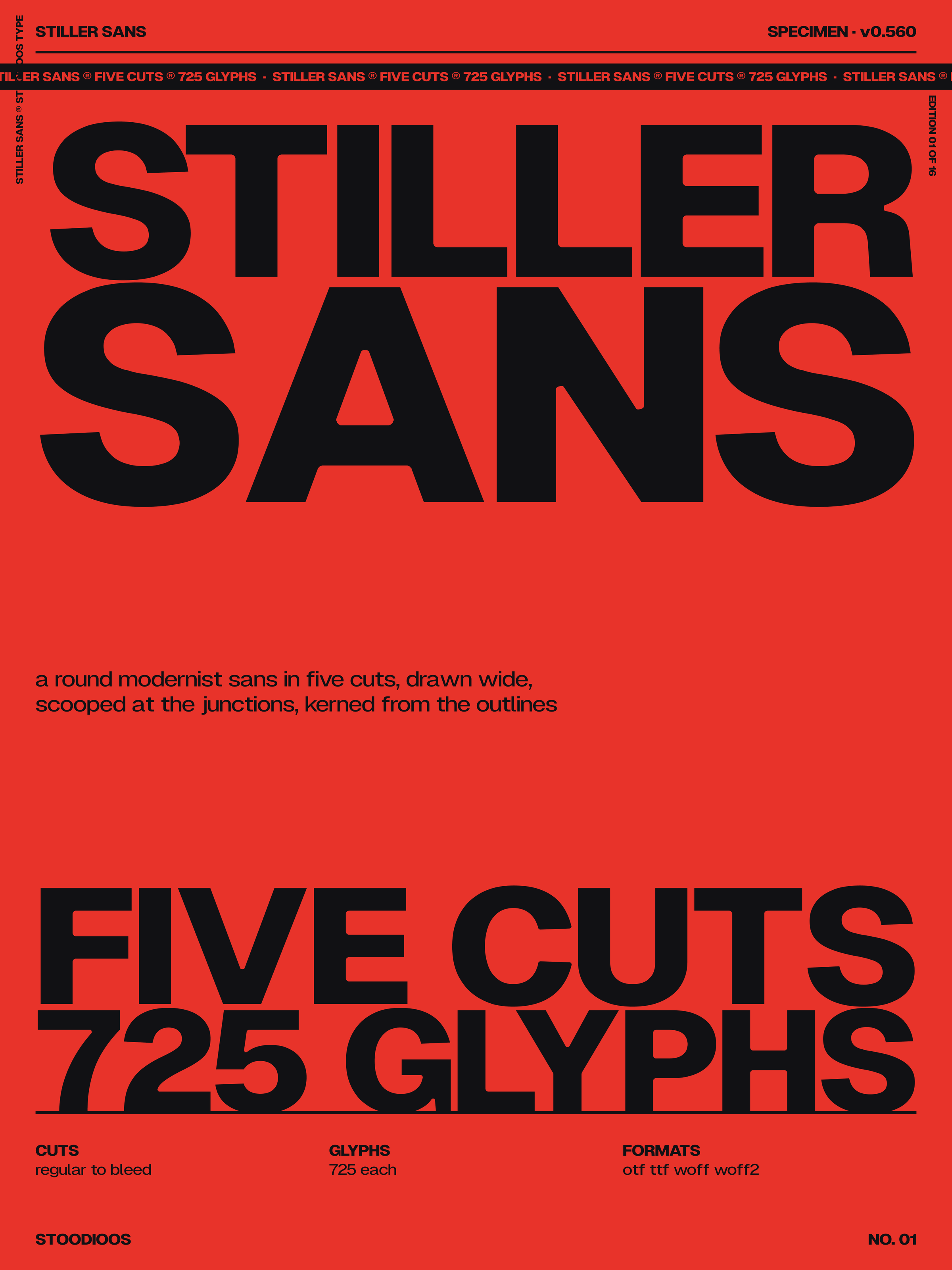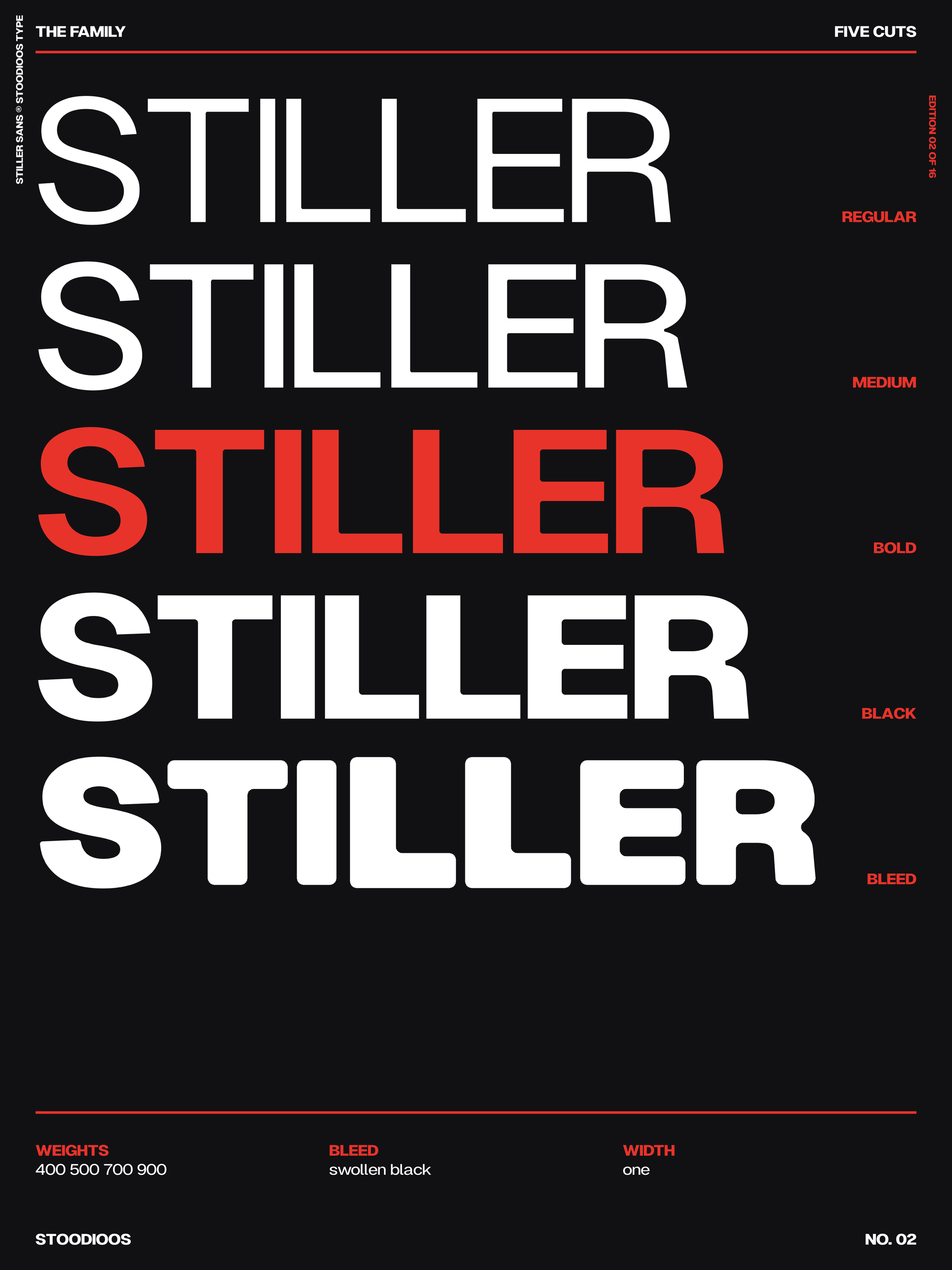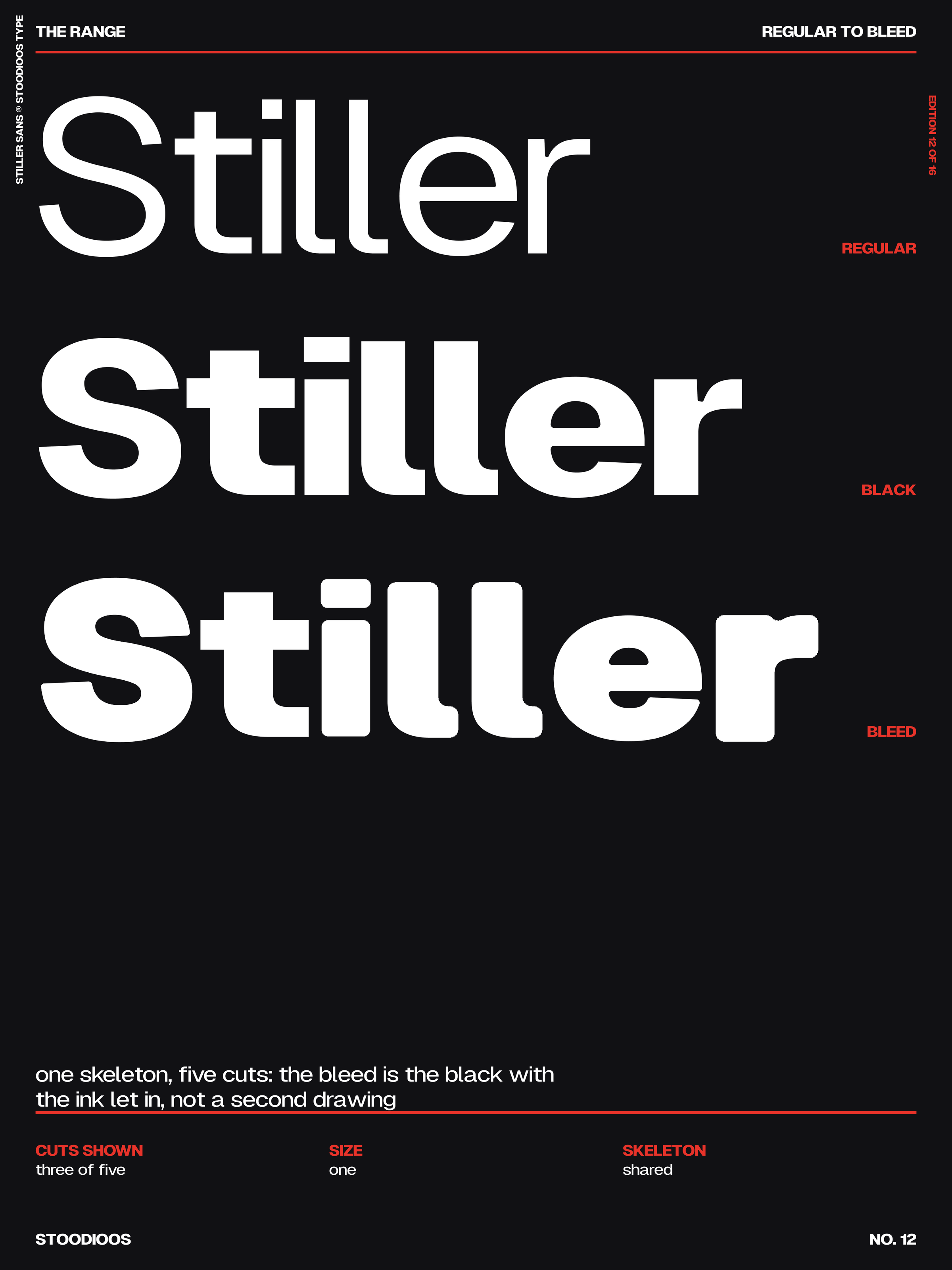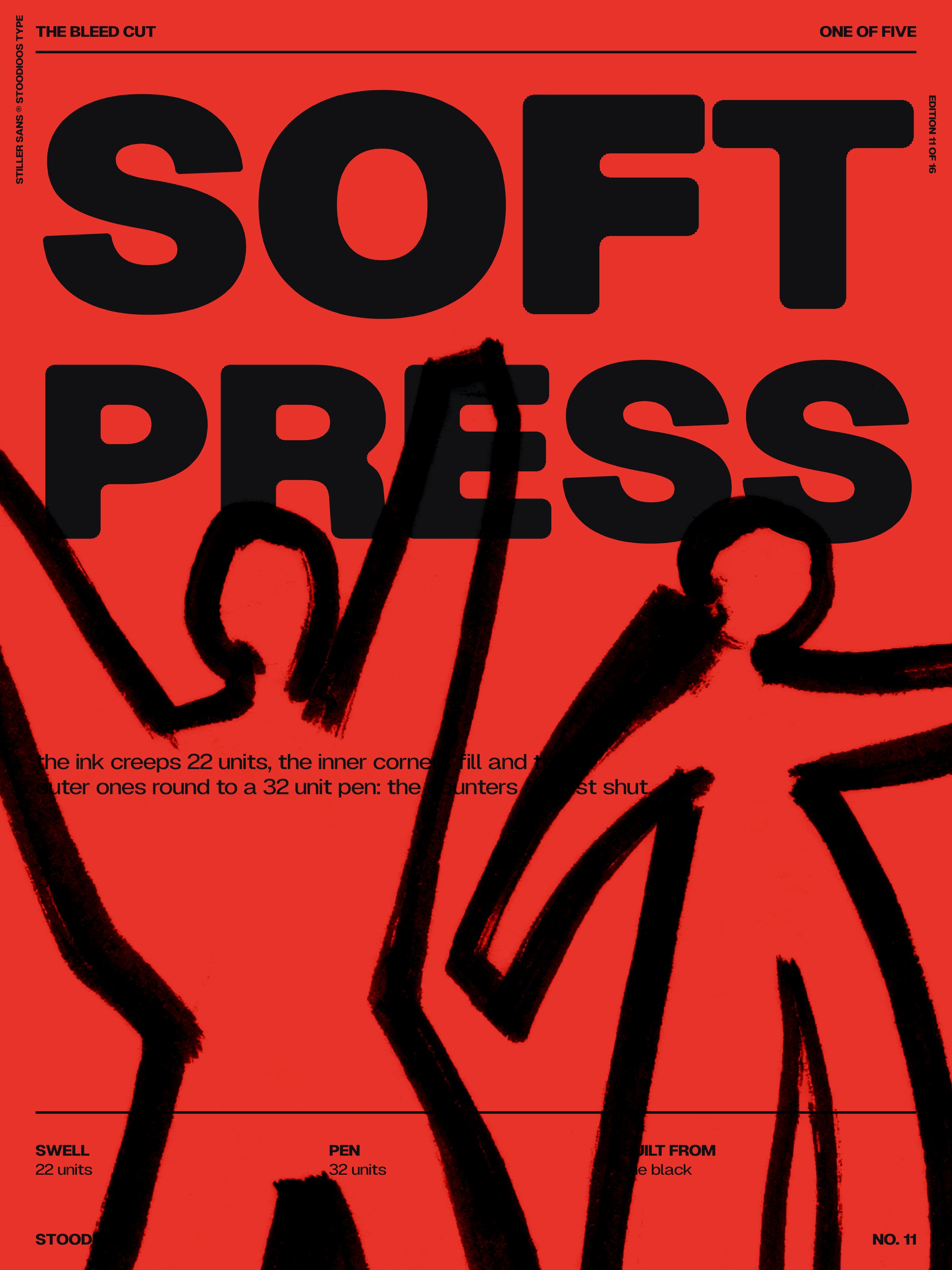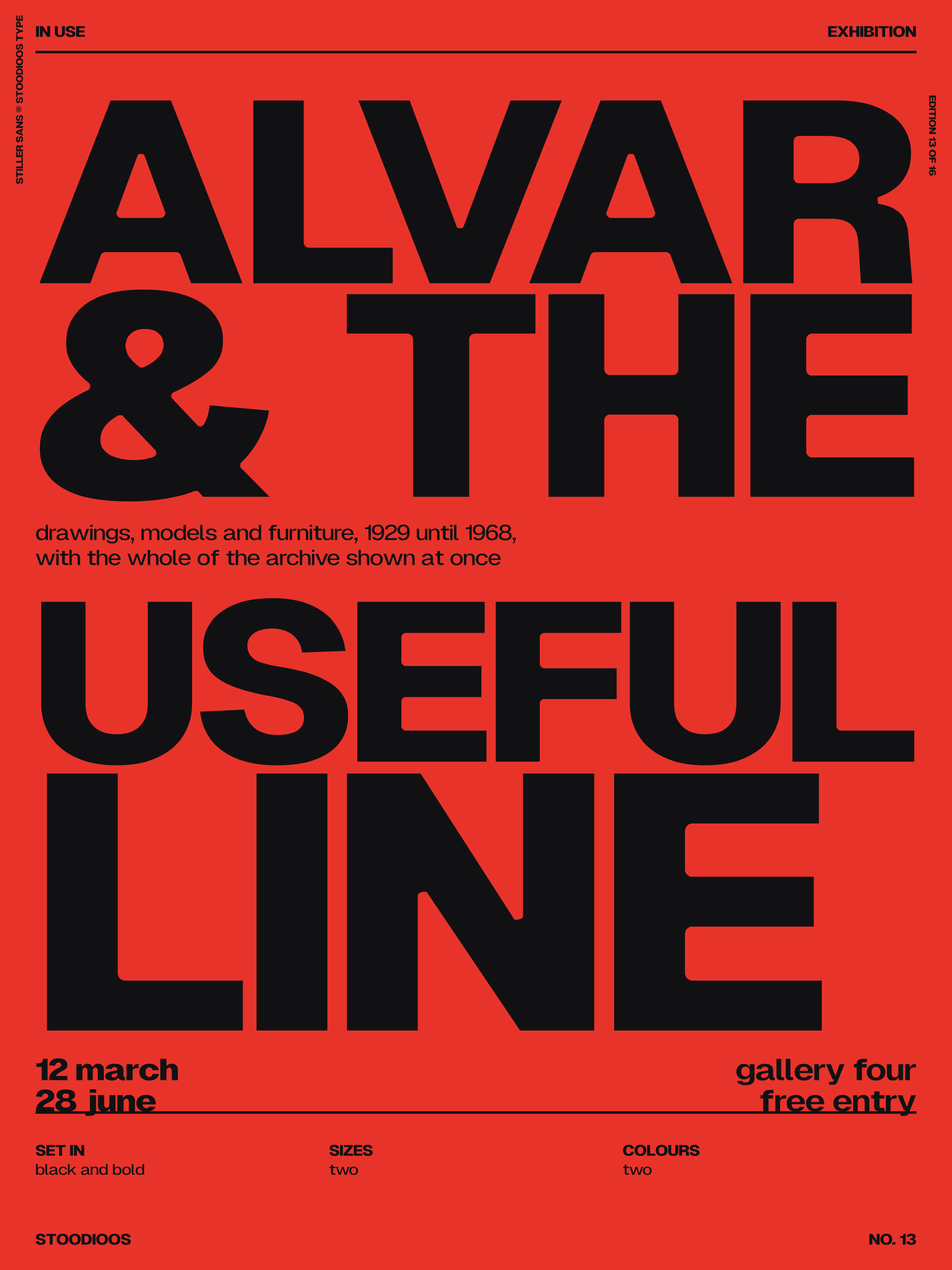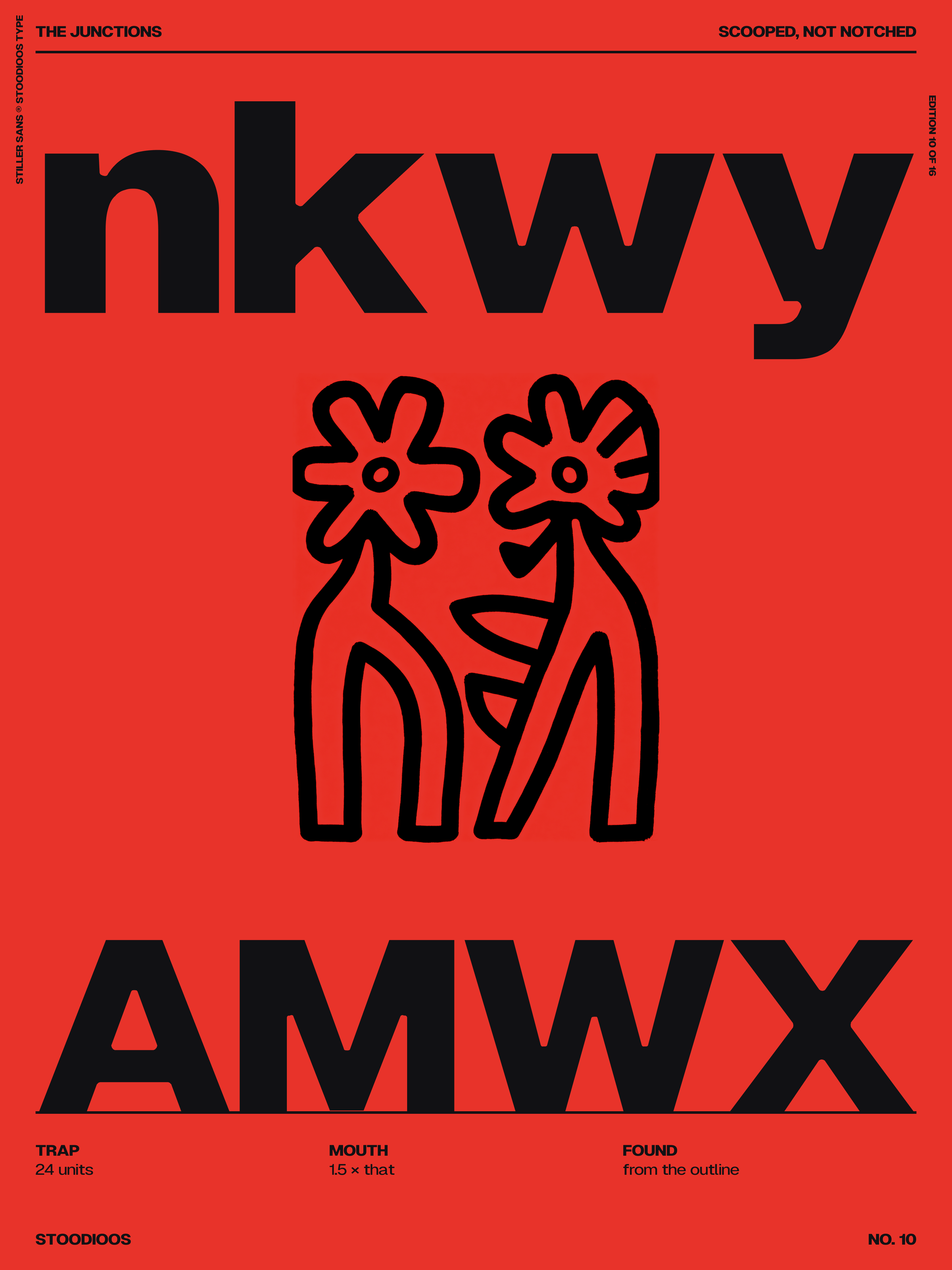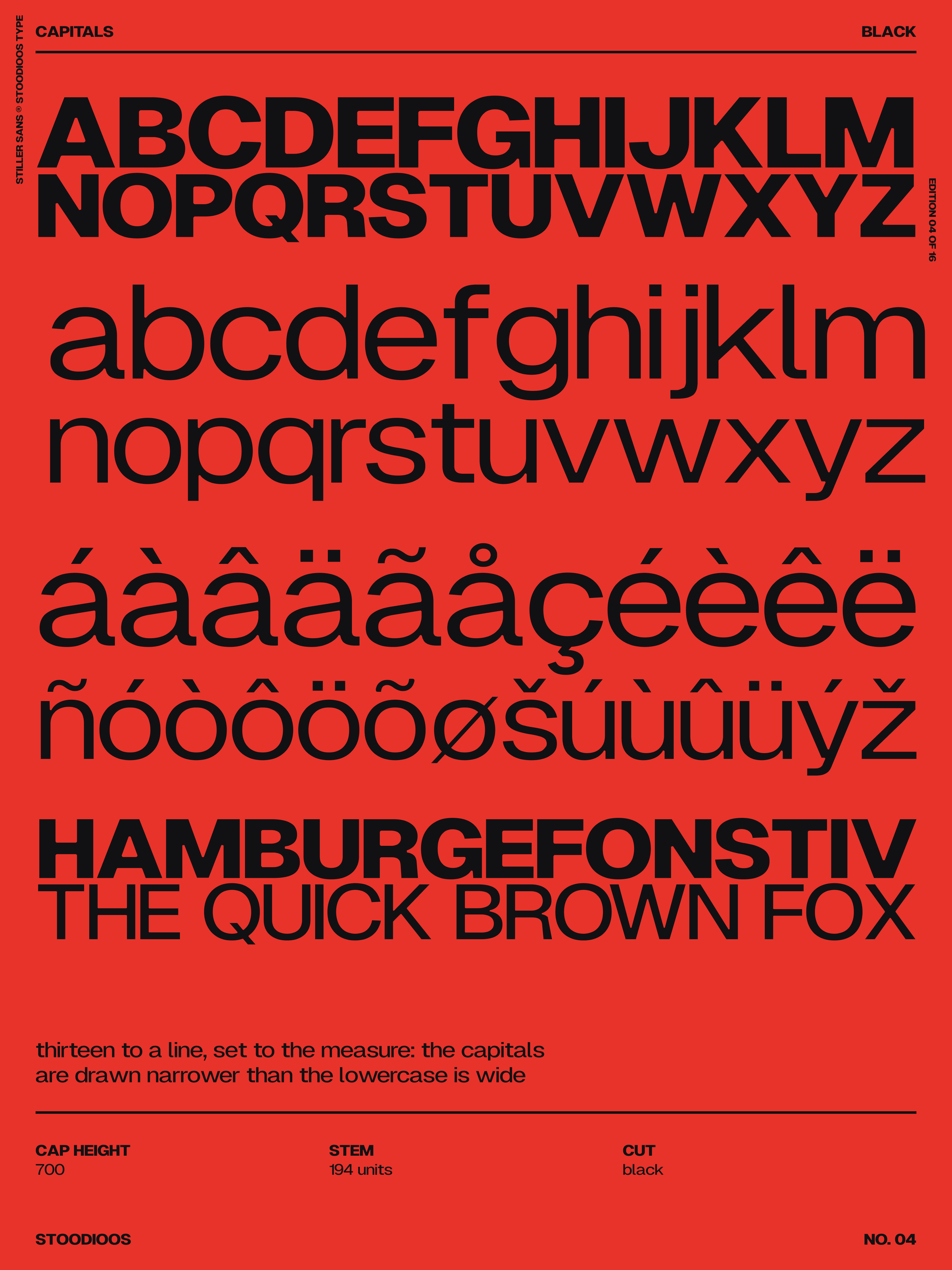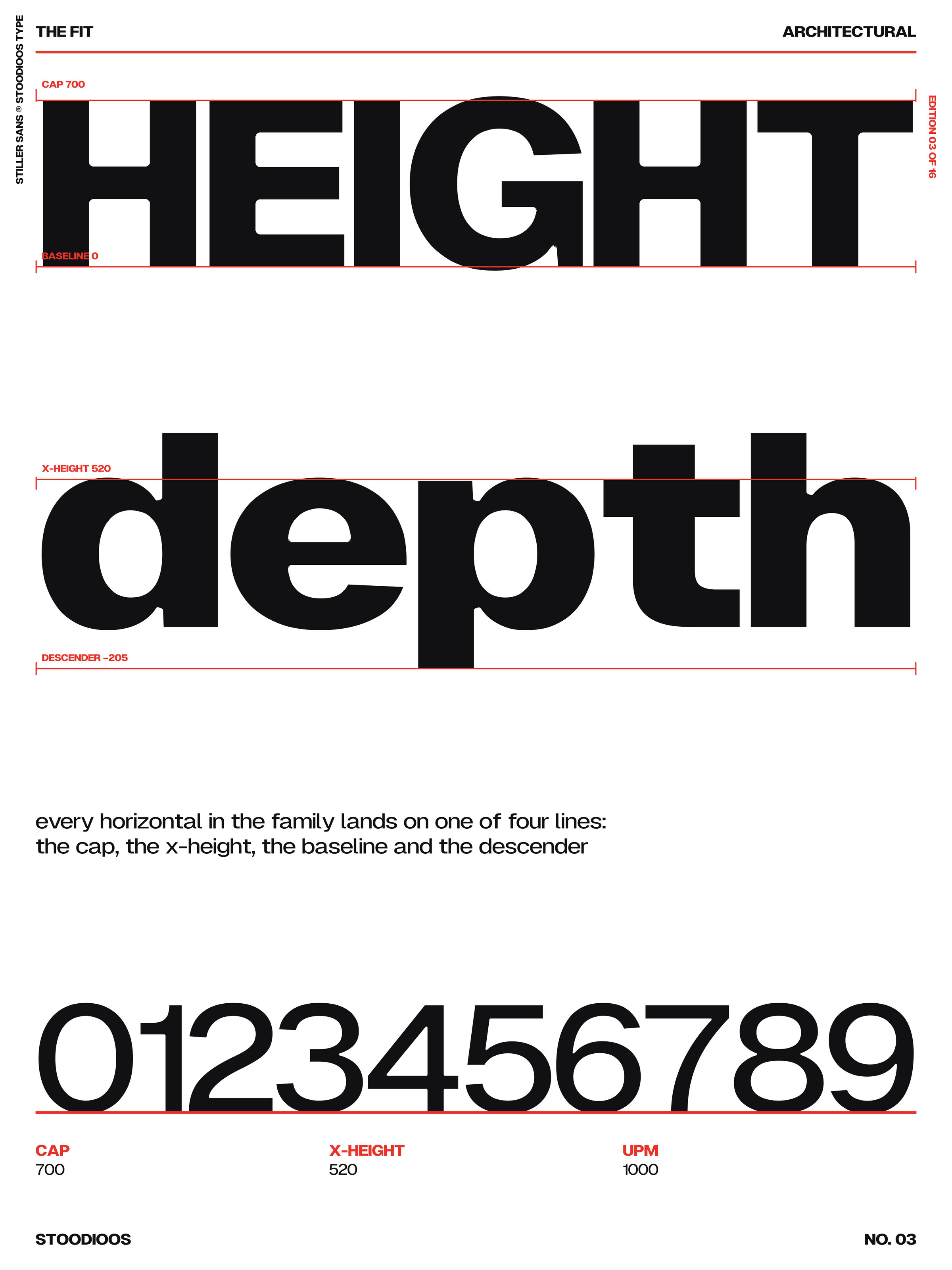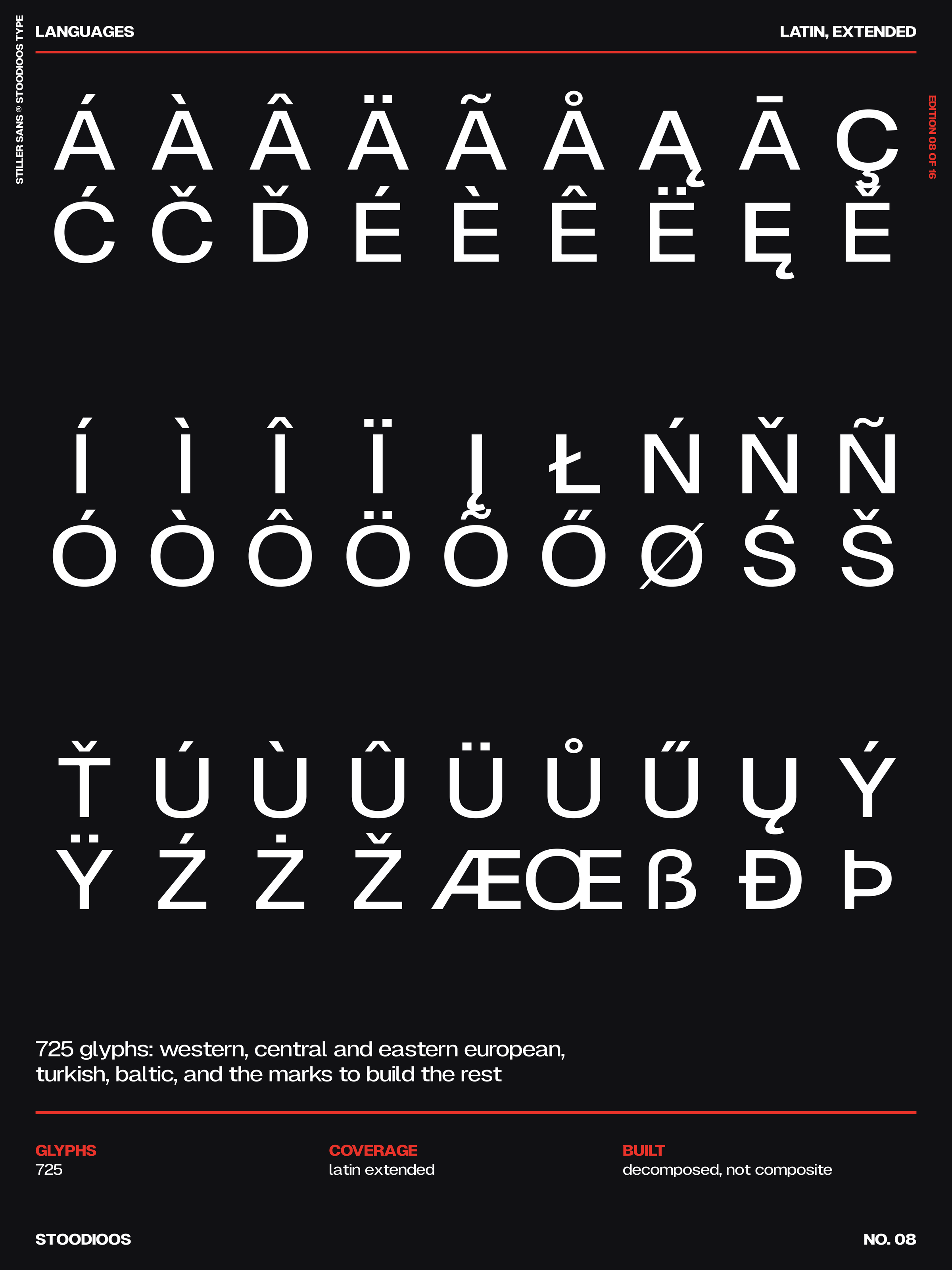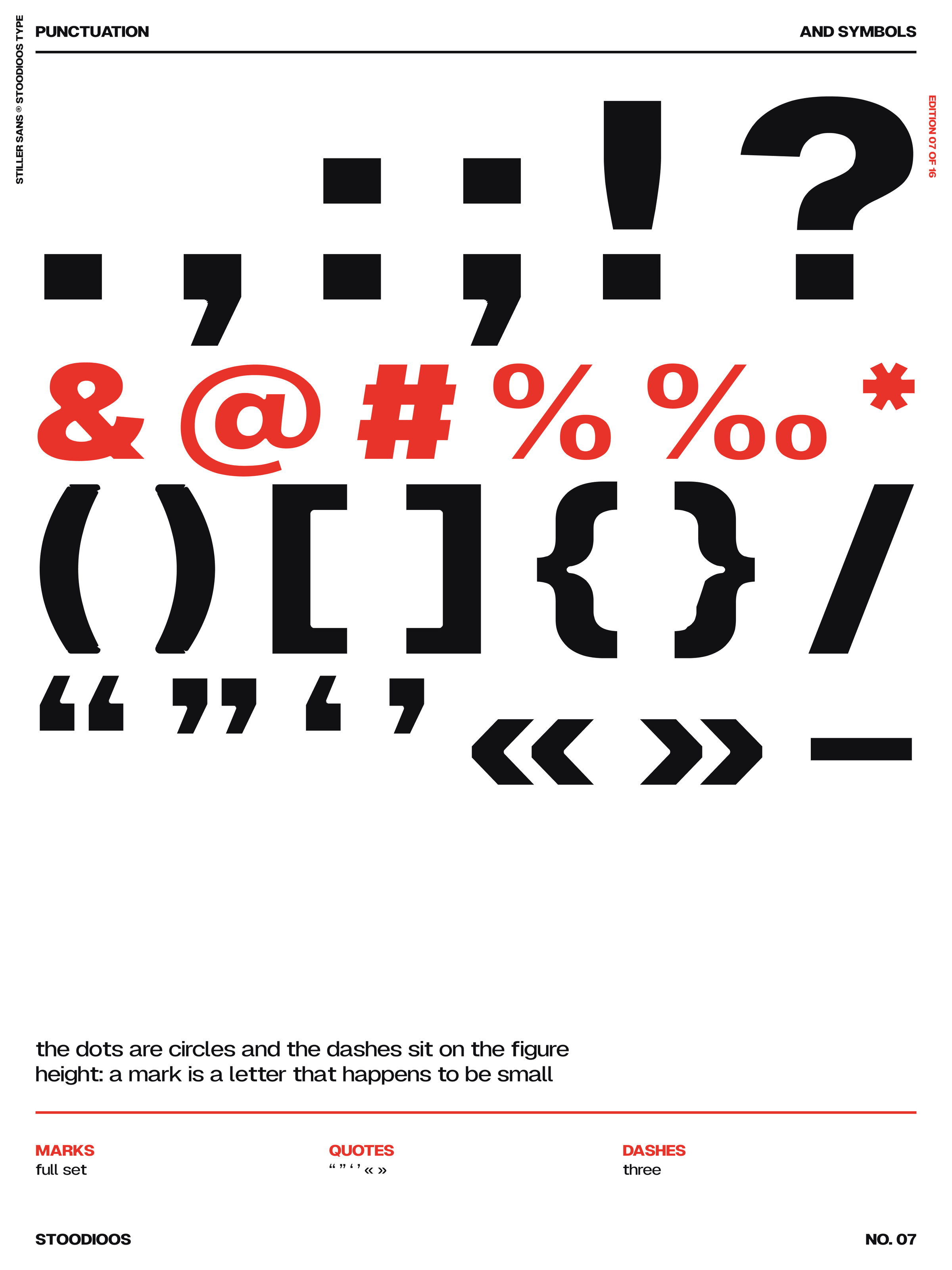
Stiller Sans
Regular and Bold
Regular · weight 400
Bold · weight 700
The text pair. Regular and Bold are style-linked, so bold reaches the drawn Bold.
Stiller
Sans
A sans with circular bowls, even weight and open forms: Swiss in its bones, warmer in its curves. Every outer corner is softened and every sharp inner corner is scooped out along a shallow arc, so the letters hold together at poster size and stay quiet in text. Four weights from Regular to Black, plus Bleed, a swollen cut where the ink creeps and the counters nearly close. 725 glyphs covering Latin including Vietnamese, Cyrillic, figures, arrows and symbols, with tight, even kerning throughout.
Five styles
Regular and Bold
Regular · weight 400
Bold · weight 700
The text pair. Regular and Bold are style-linked, so bold reaches the drawn Bold.
Medium
Medium · weight 500
Between the two text weights, for interfaces and small sizes that need more presence.
Black
Black · weight 900
The heaviest text weight, for headlines set to the full measure.
725 glyphs per style · Latin, Vietnamese and Cyrillic
Bleed
Bleed · weight 900
Built from the Black: the ink creeps outward, inner corners fill and outer ones round off, so the counters almost shut.